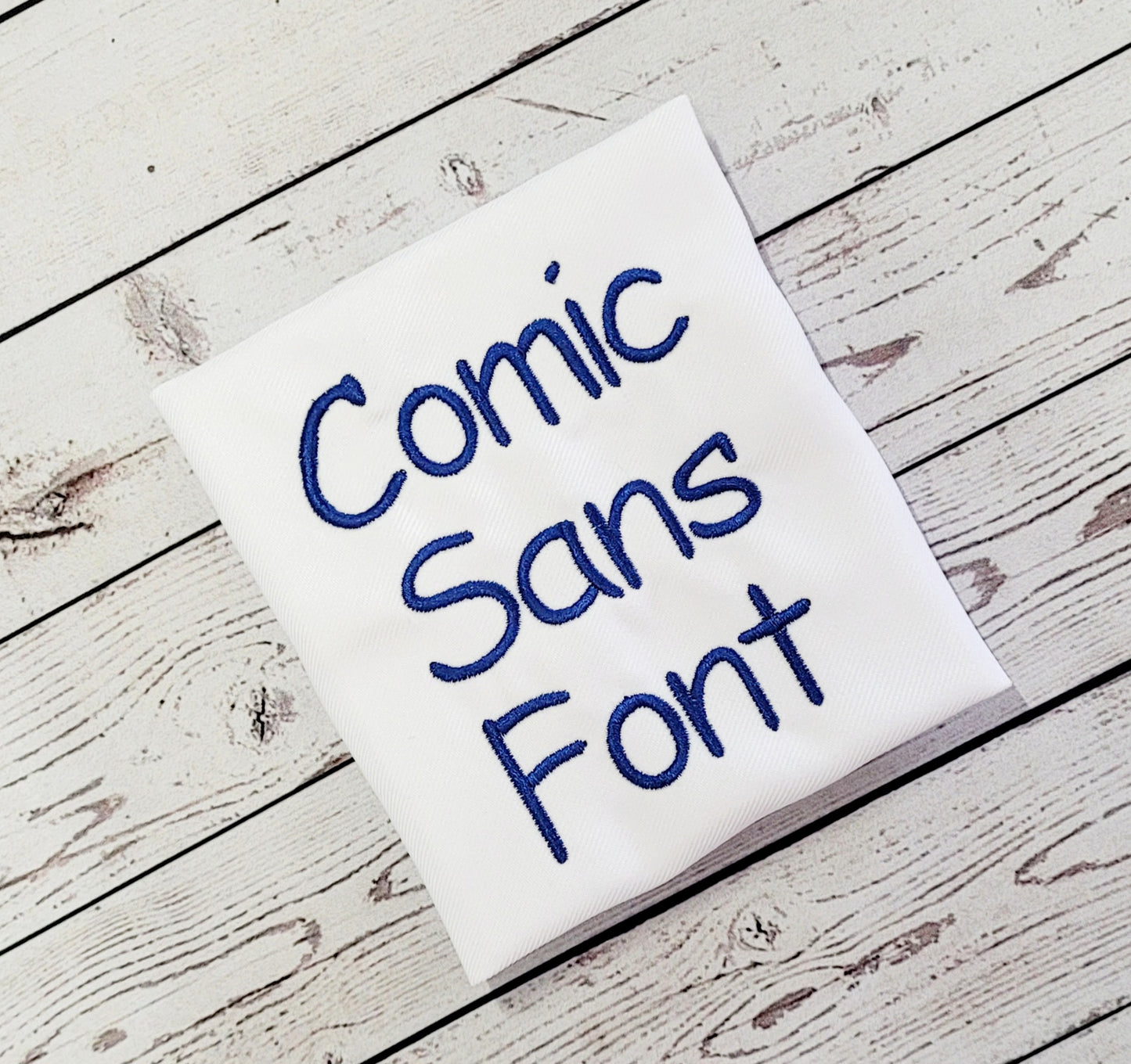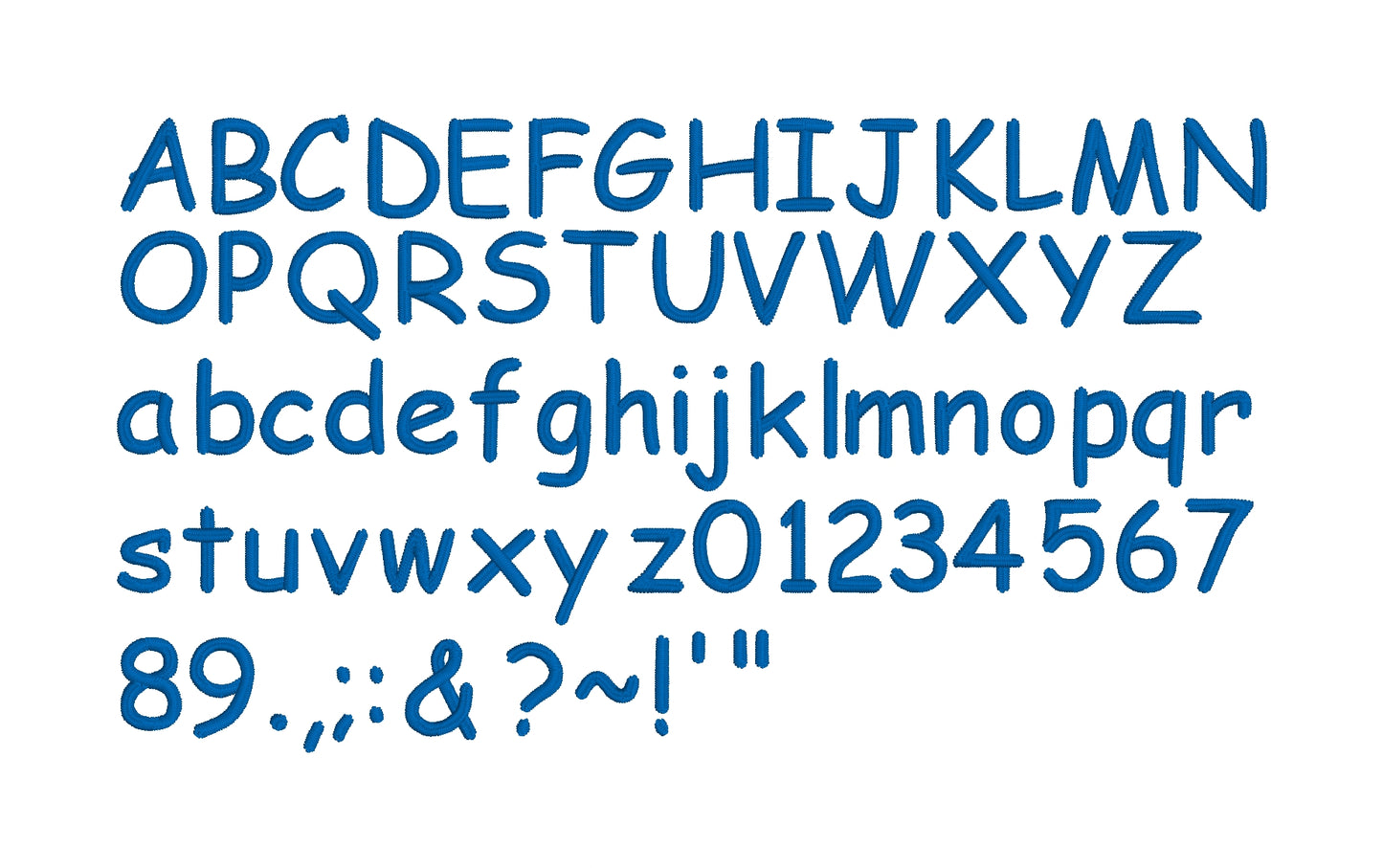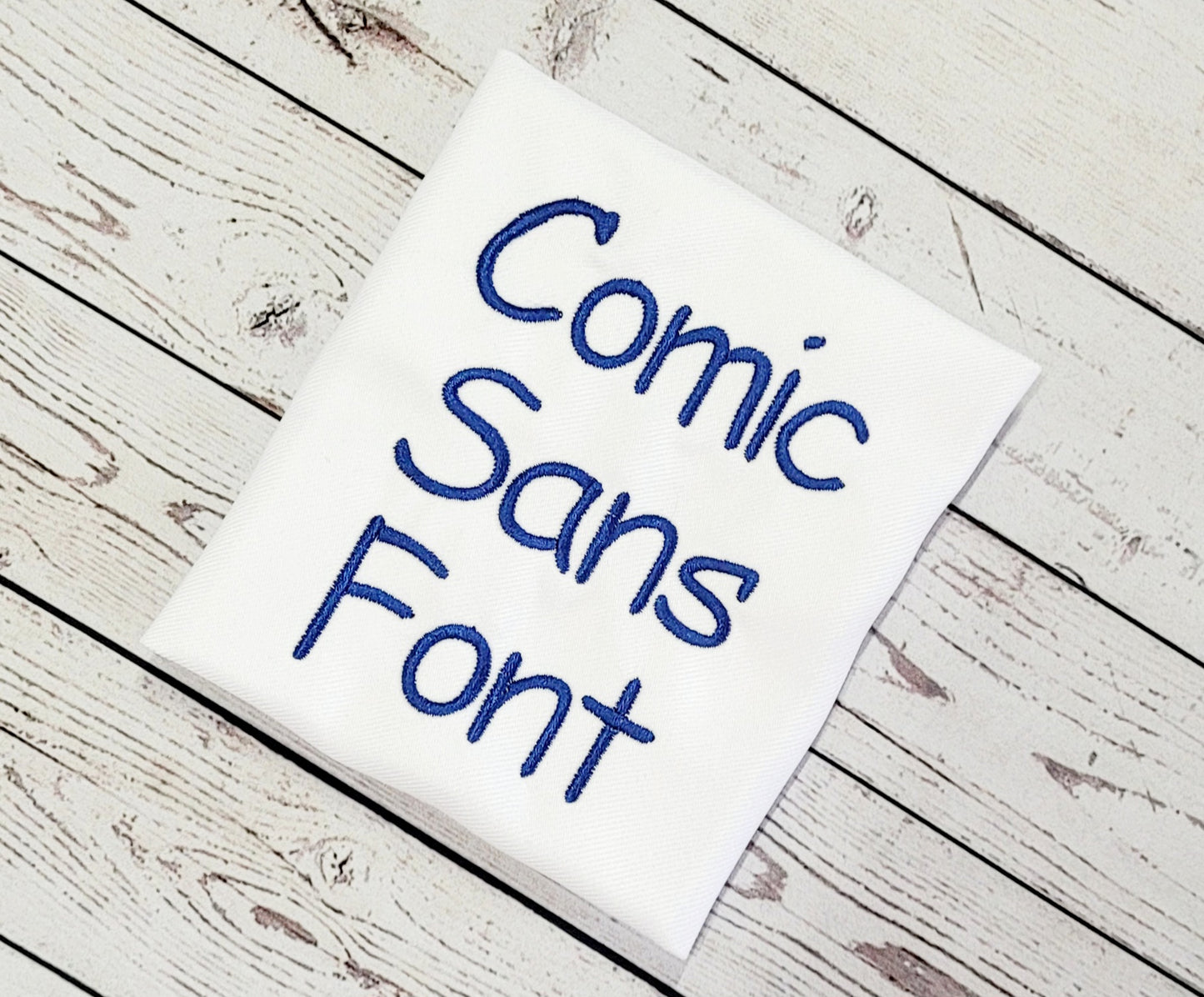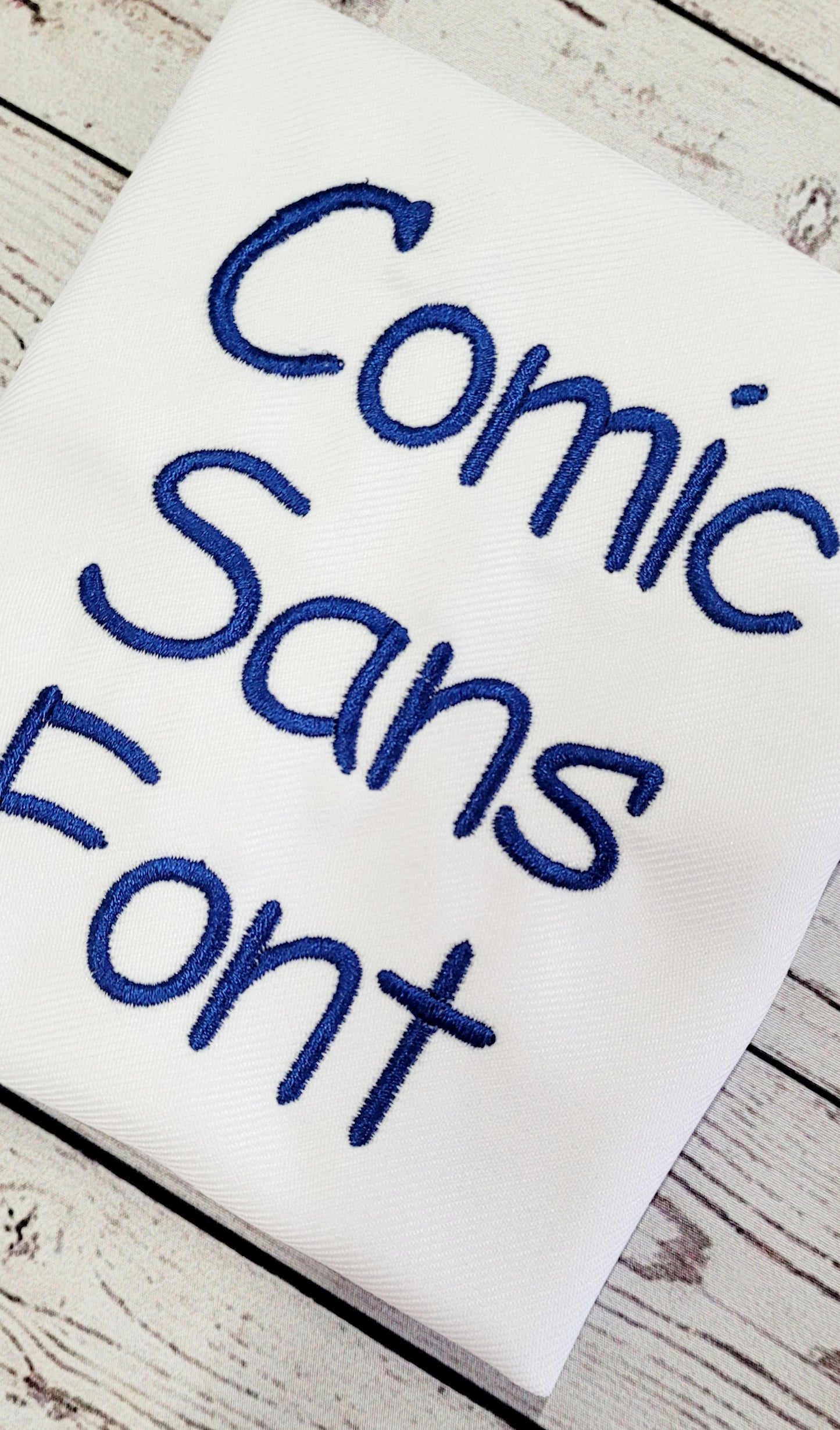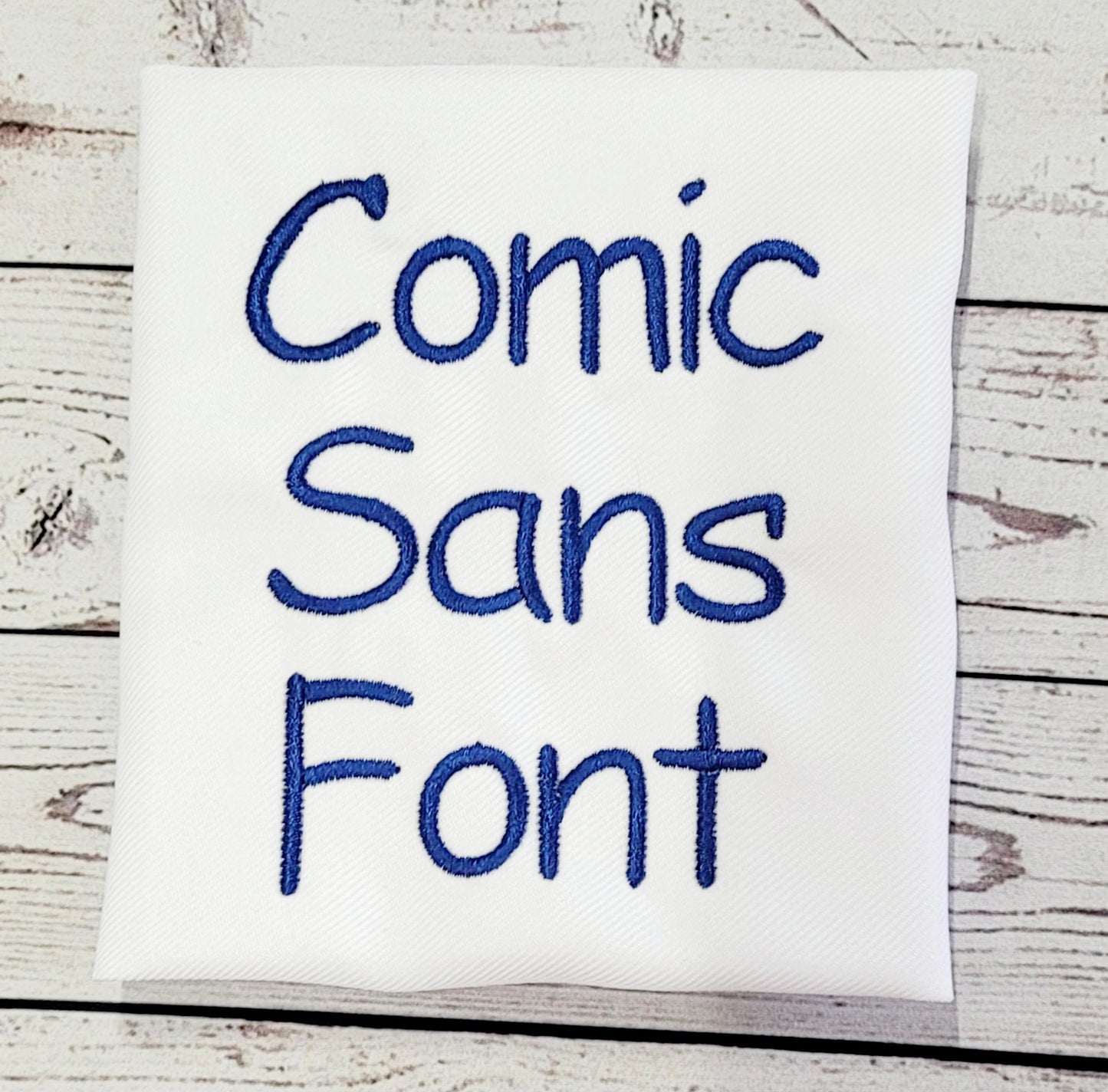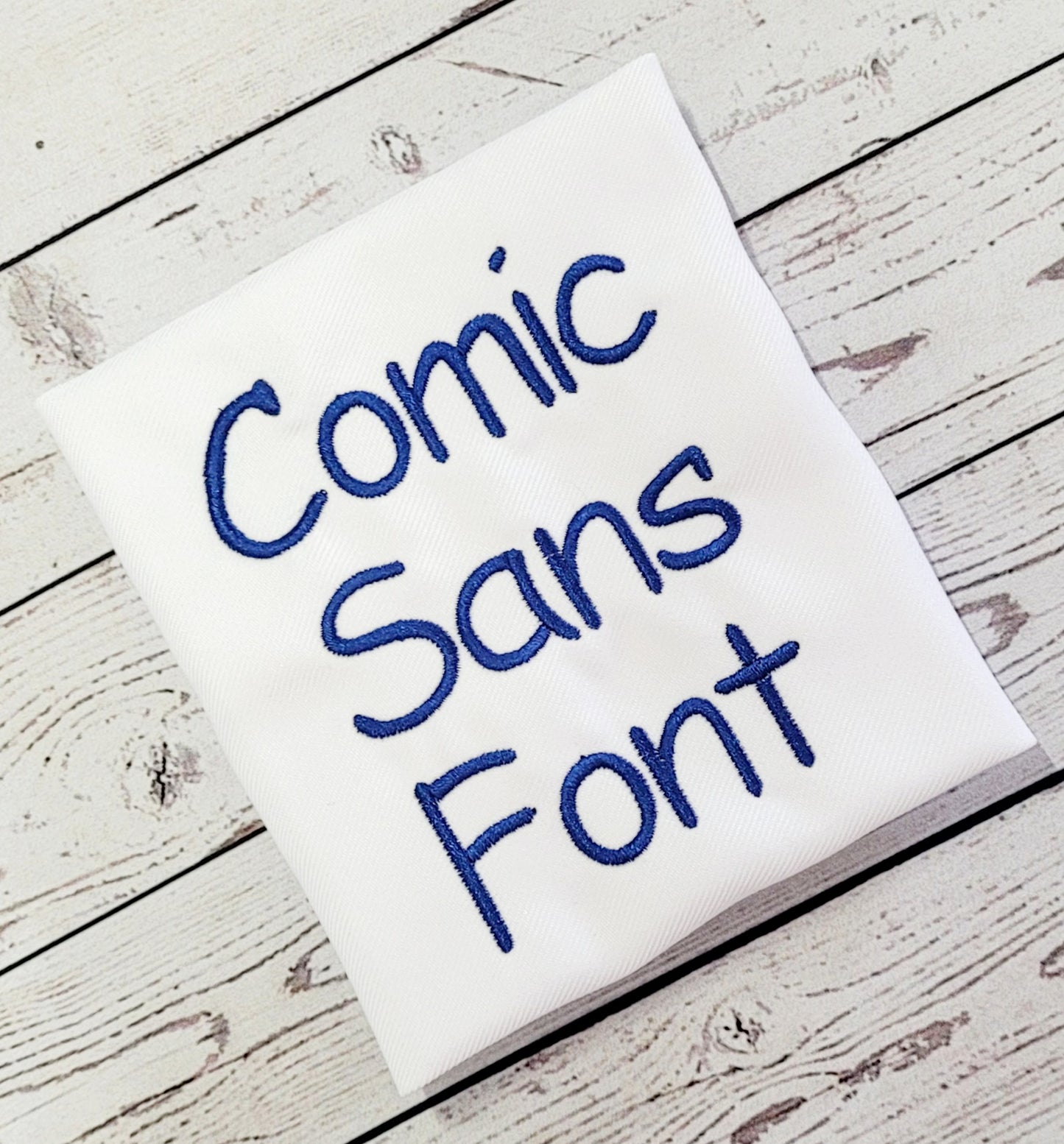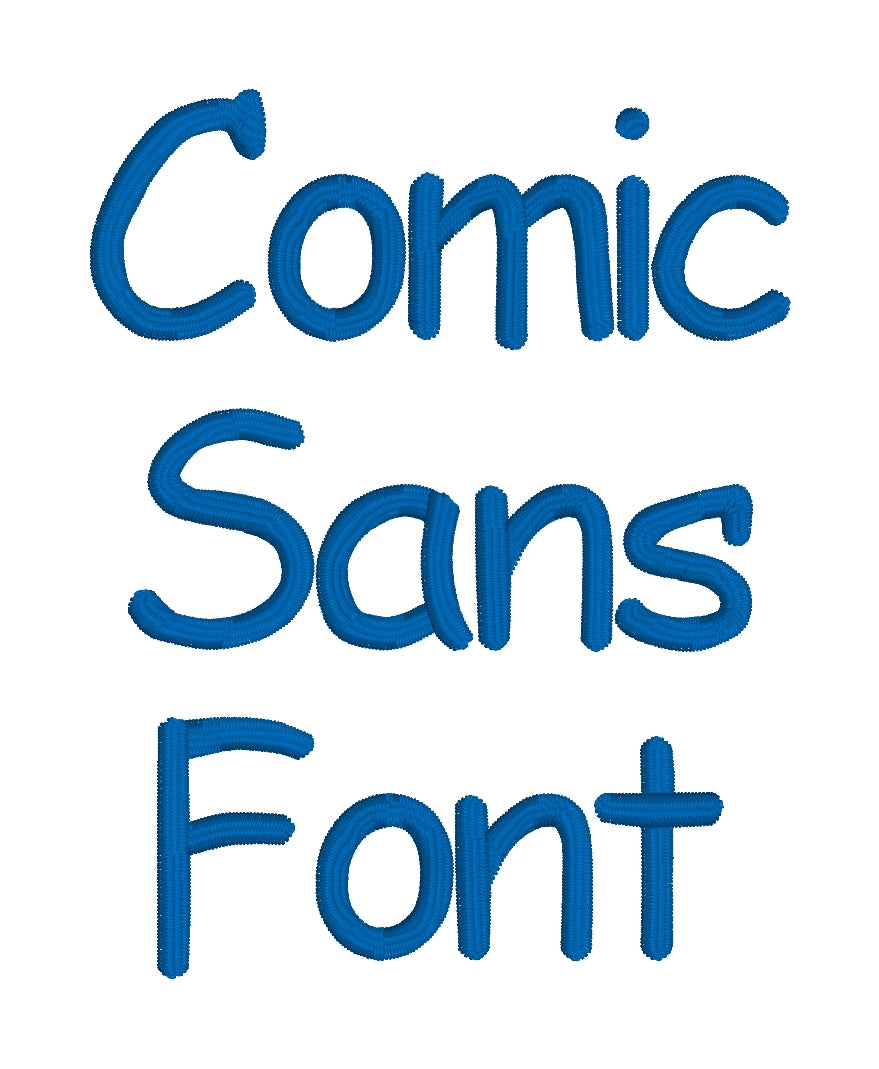
Comic Sans Font Machine Embroidery File
Add a playful touch to your embroidery projects with our Comic Sans Font Machine Embroidery File. This unique font will bring a fun and quirky vibe to any design. Easily embroider words and phrases in a handwritten style with this machine embroidery file.